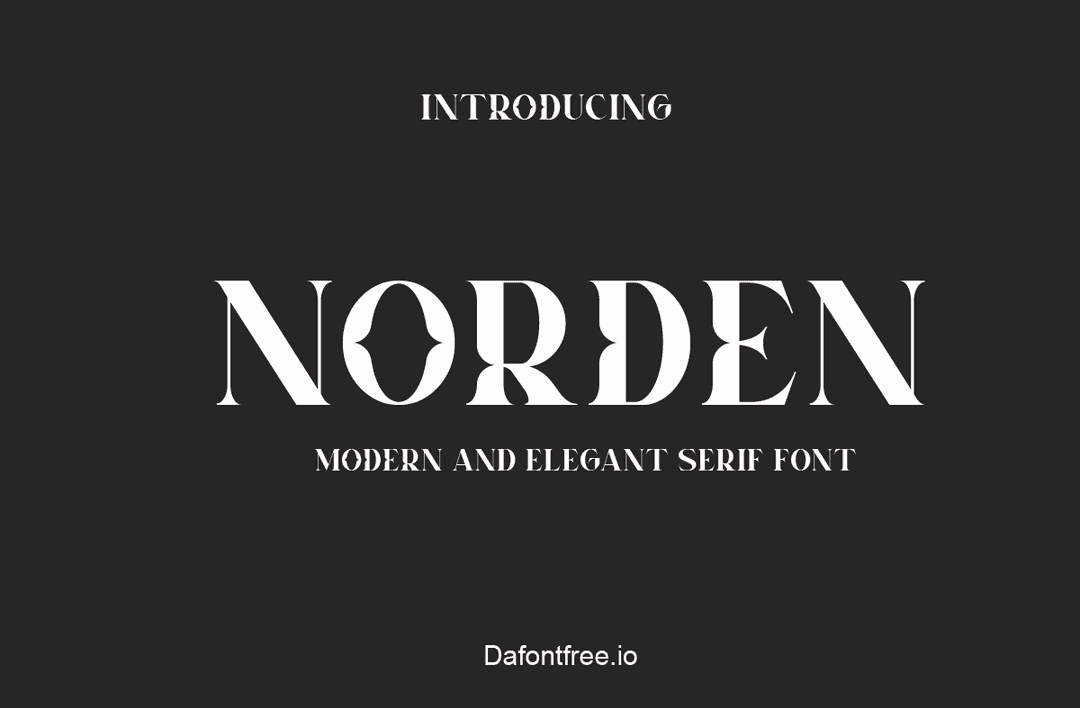
Norden is an elegant and modern serif font. Fall for its ravishing style and use it to create gorgeous logos, headline, title, branding, wedding invitations, beautiful stationary art, eye-catching social media posts, and much more! This font is PUA encoded which means you can access all of the amazing glyphs with ease!